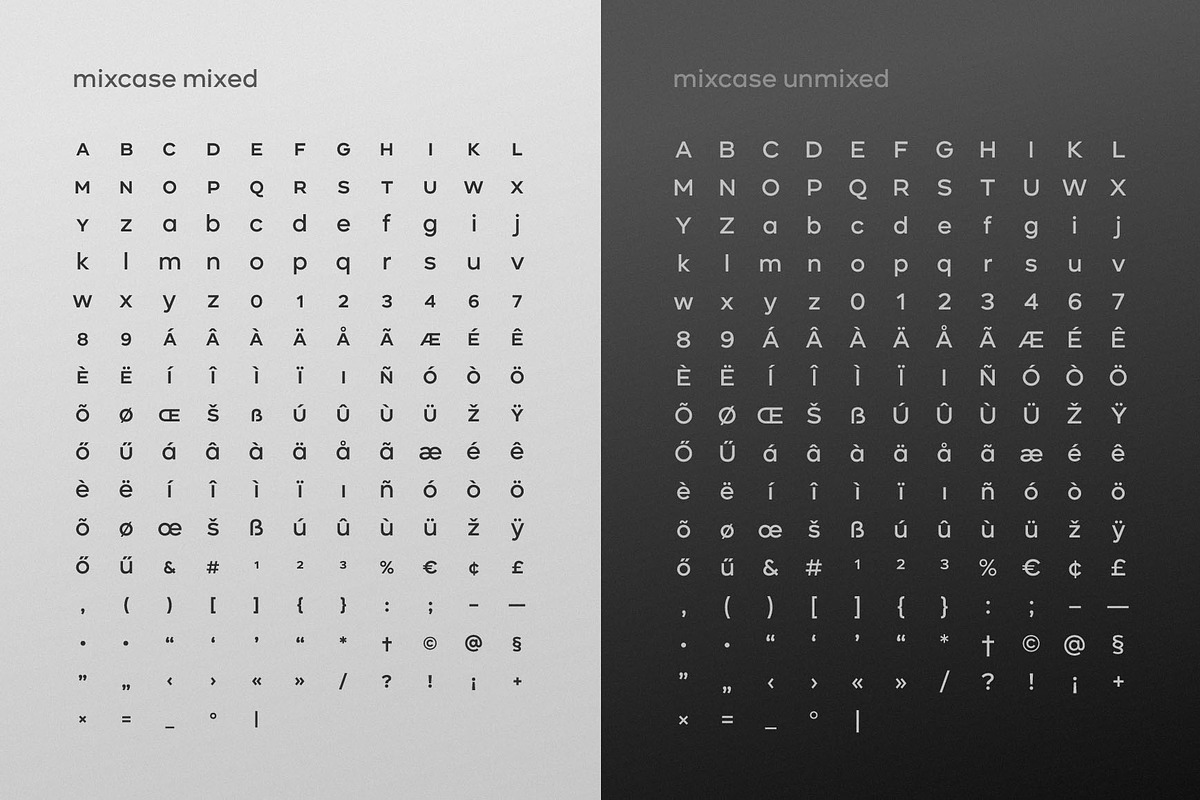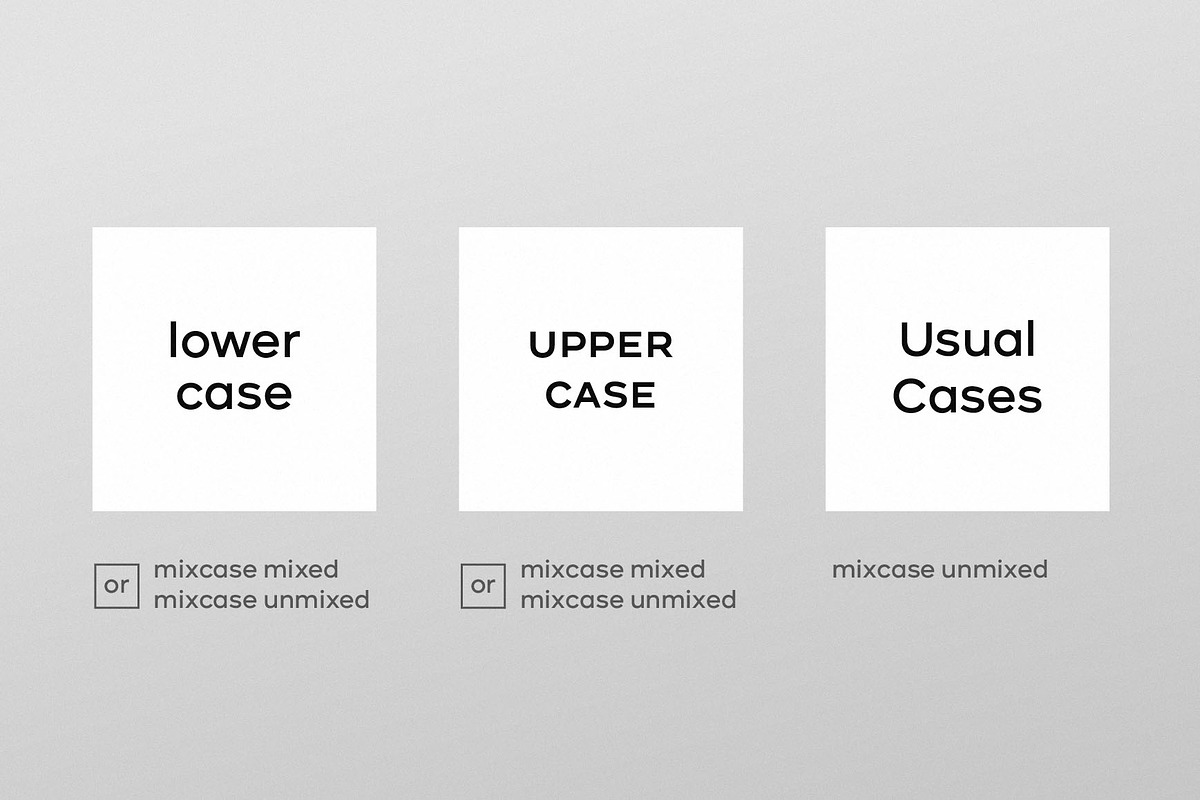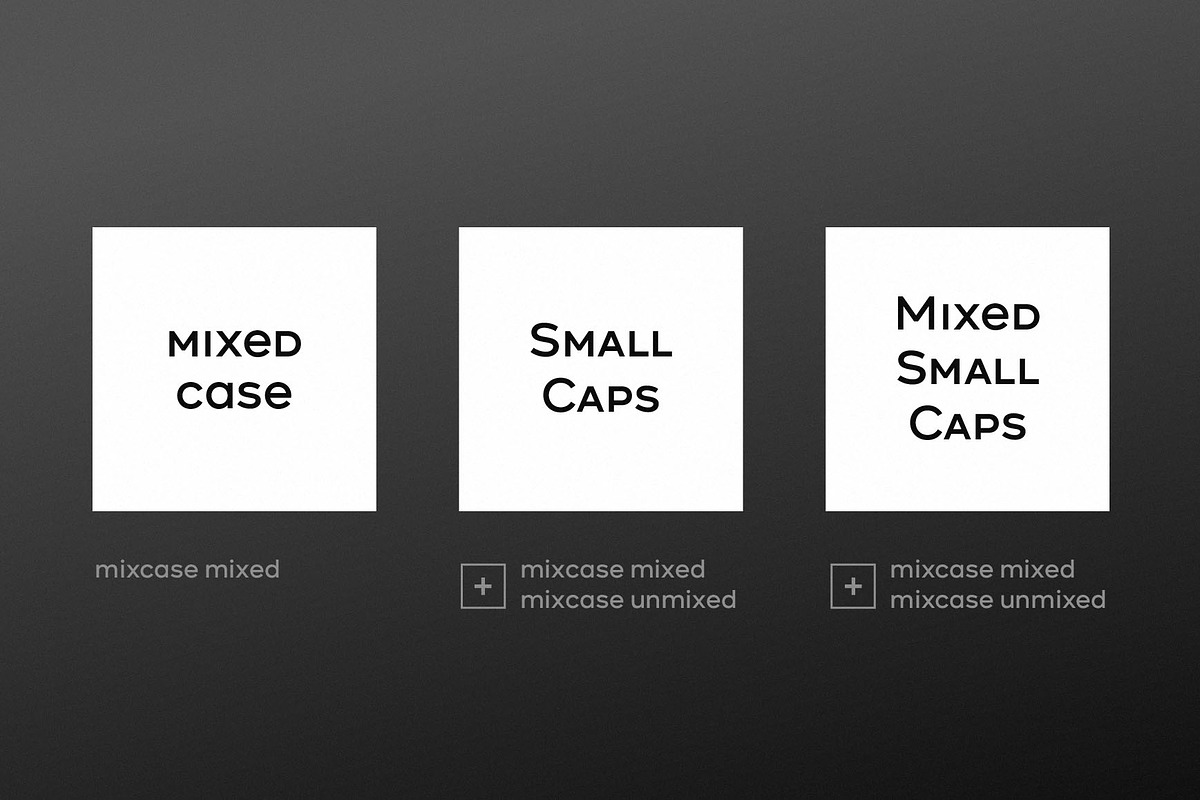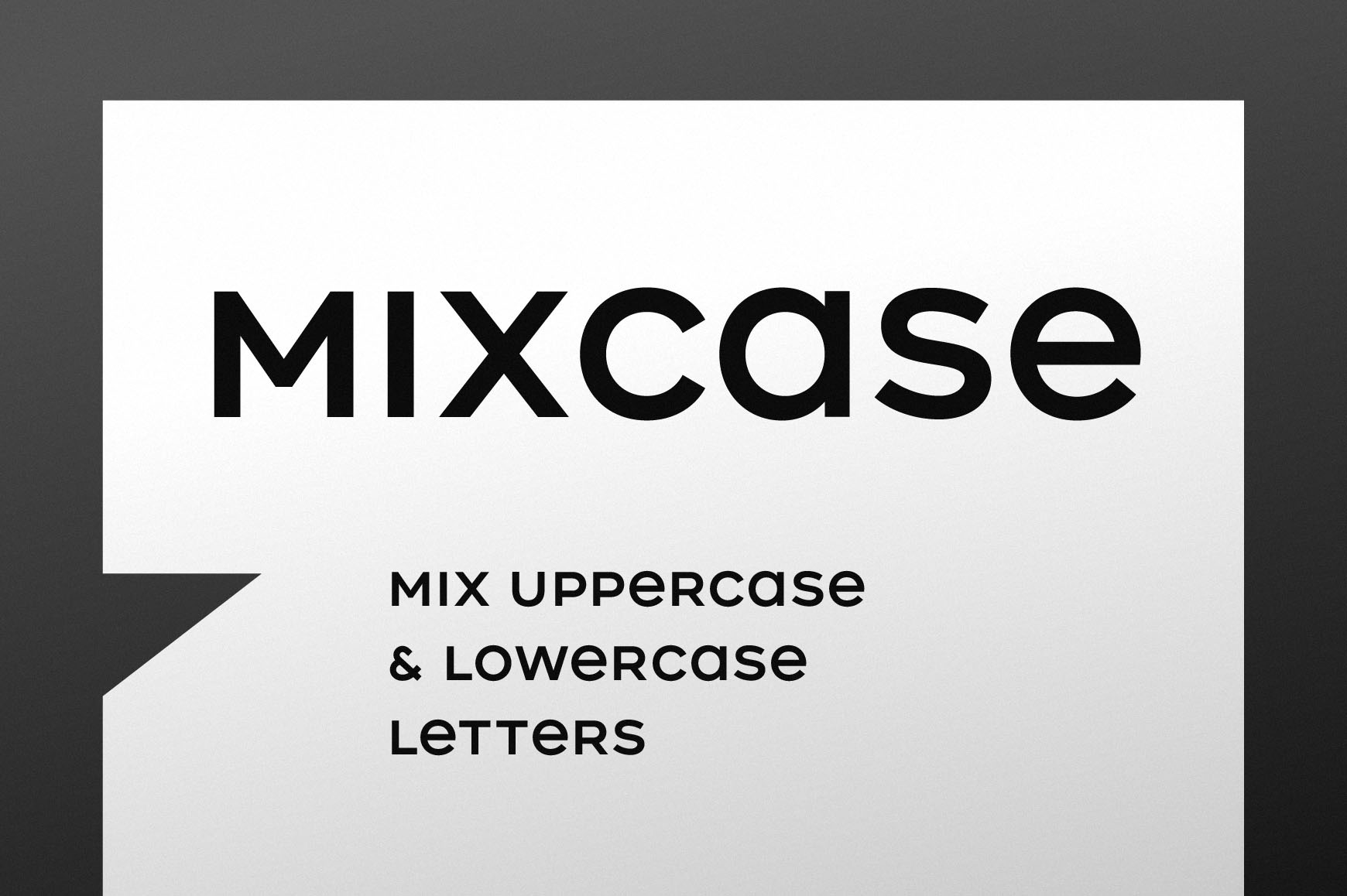
Mixcase - Mixed Case Font
Mixcase font family is suitable for creating logos, wordmarks, titles, taglines.
The properties of uppercase letters, numbers, punctuation and extra characters in Mixcase Mixed font are the same as those of lowercase letters, which allows to combine letters of both cases in different ways.
All characters in Mixcase Unmixed font have normal ratios, so it can be used as typesetting font.
The combination of both fonts provides additional use cases in the form of small caps and mixed small caps.
- Latin letters
- Basic multilingual letters
- Extra characters